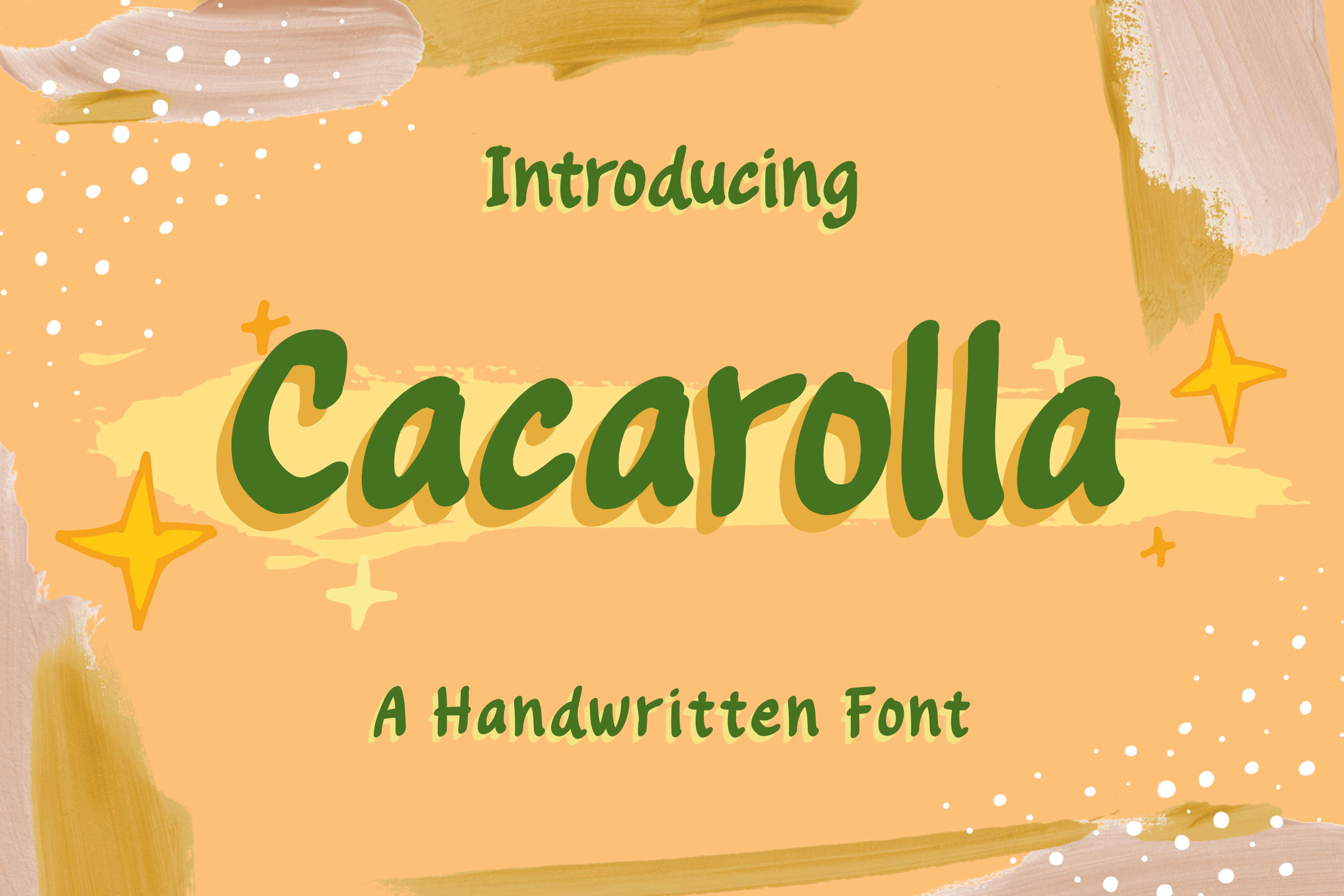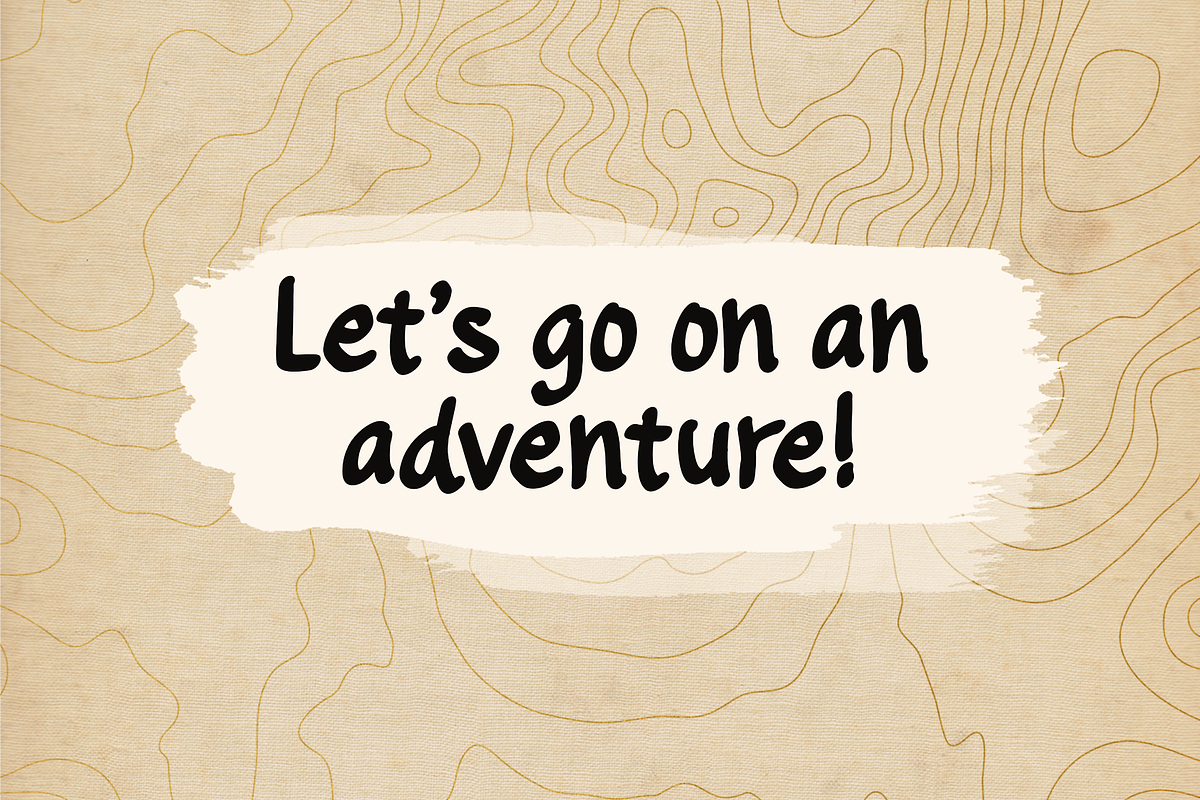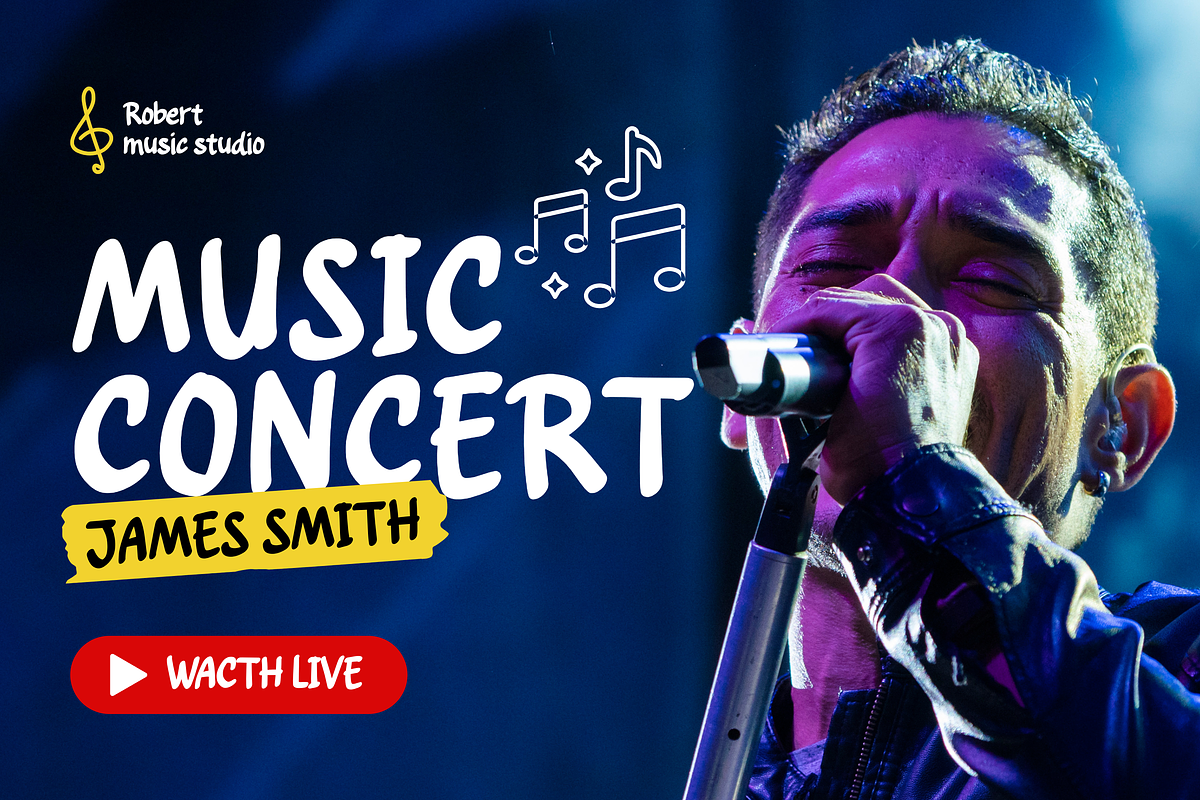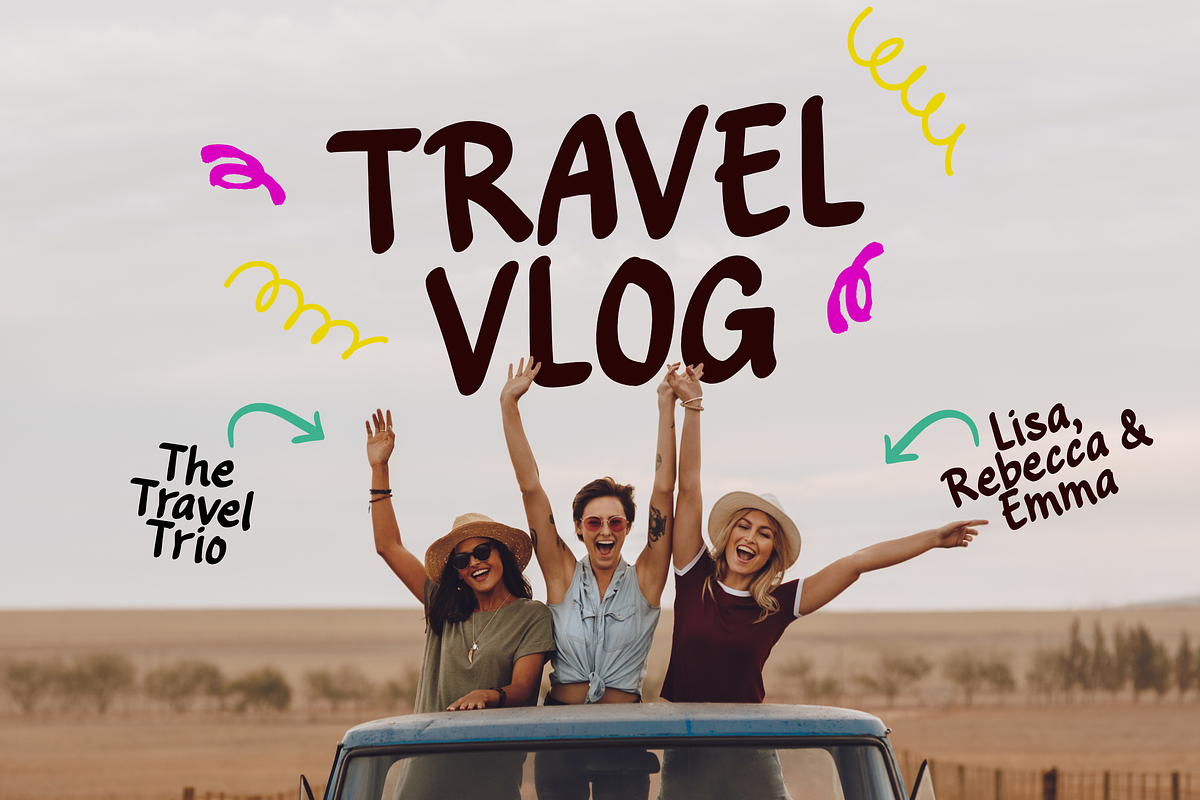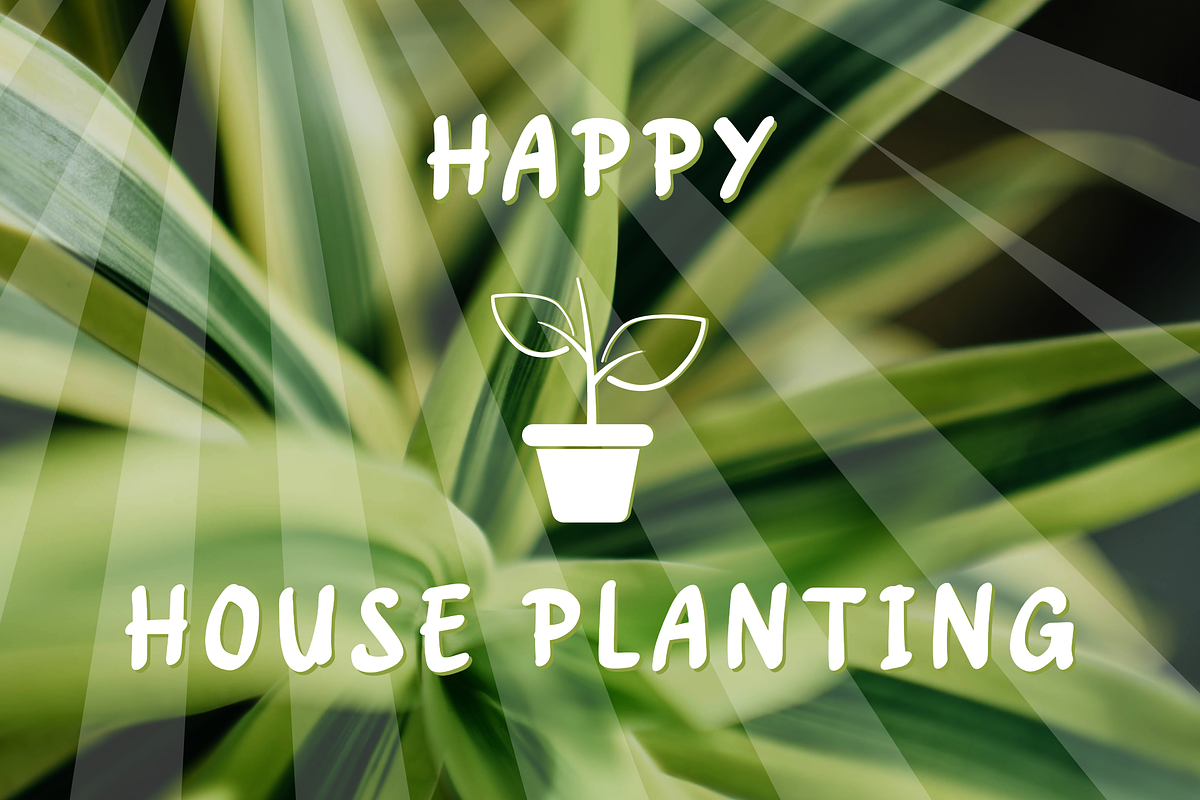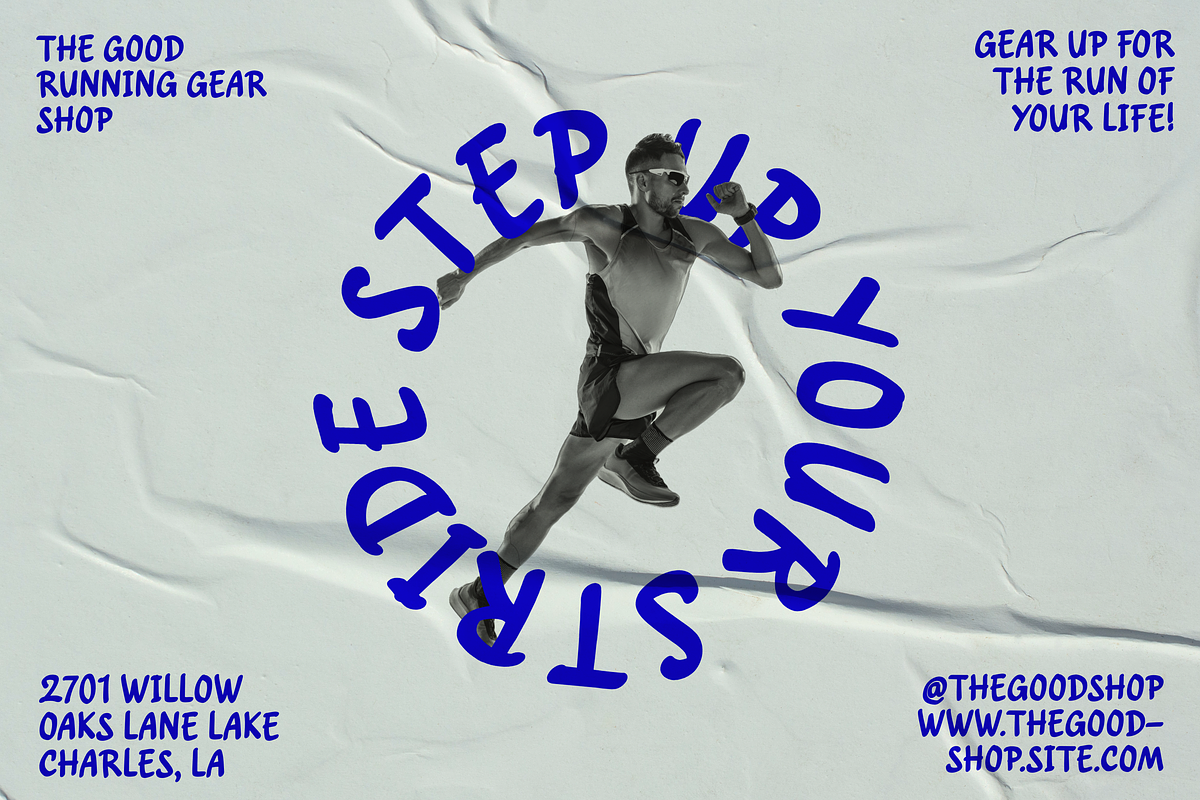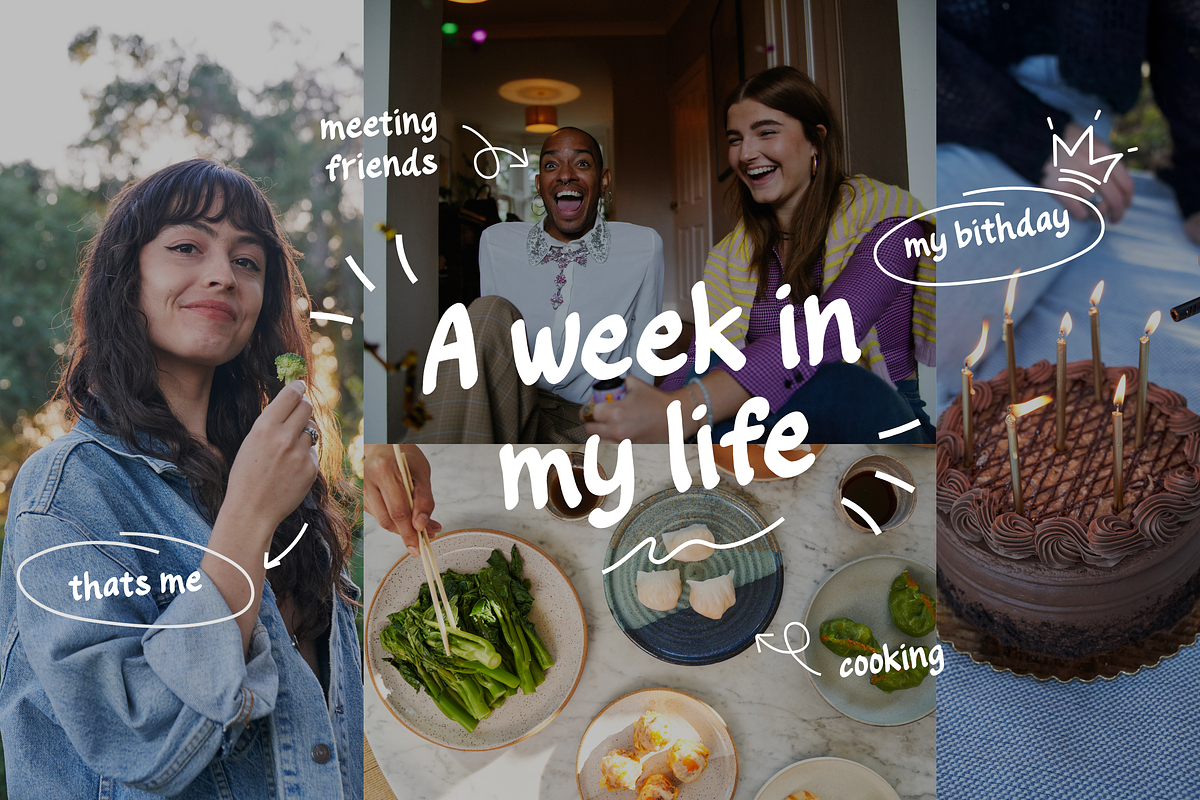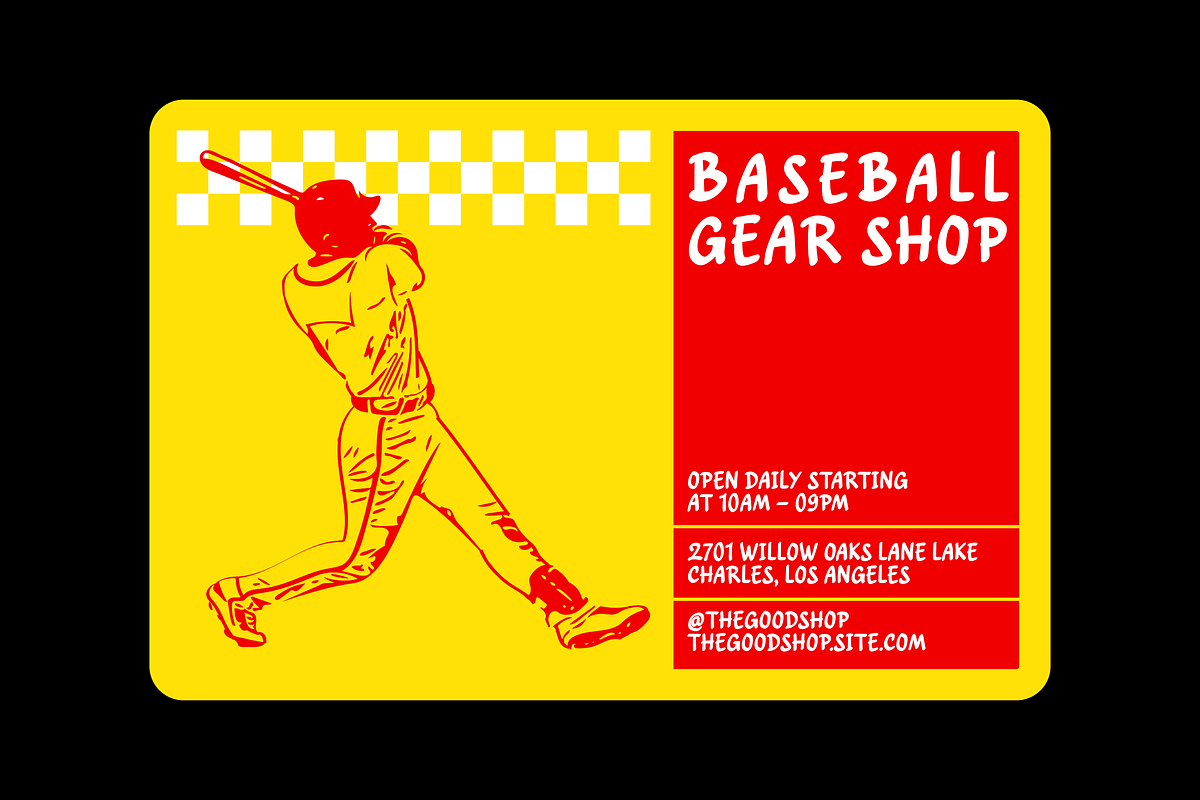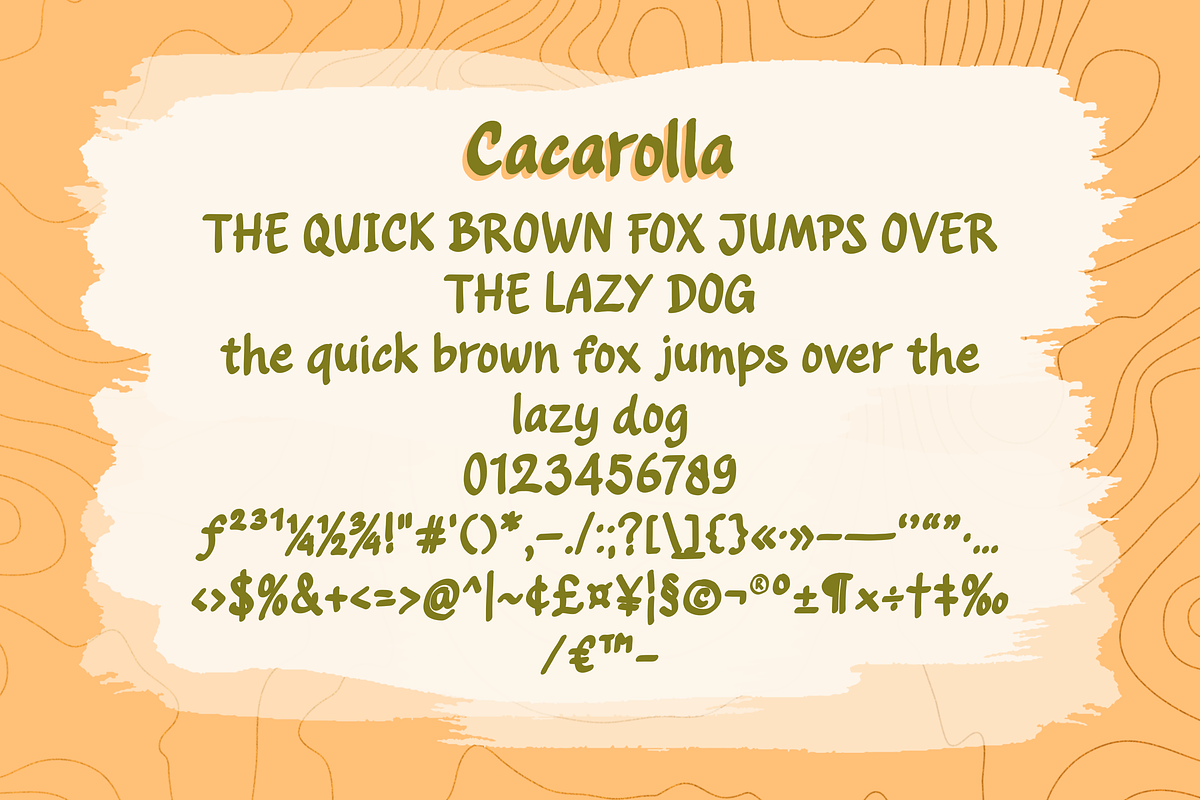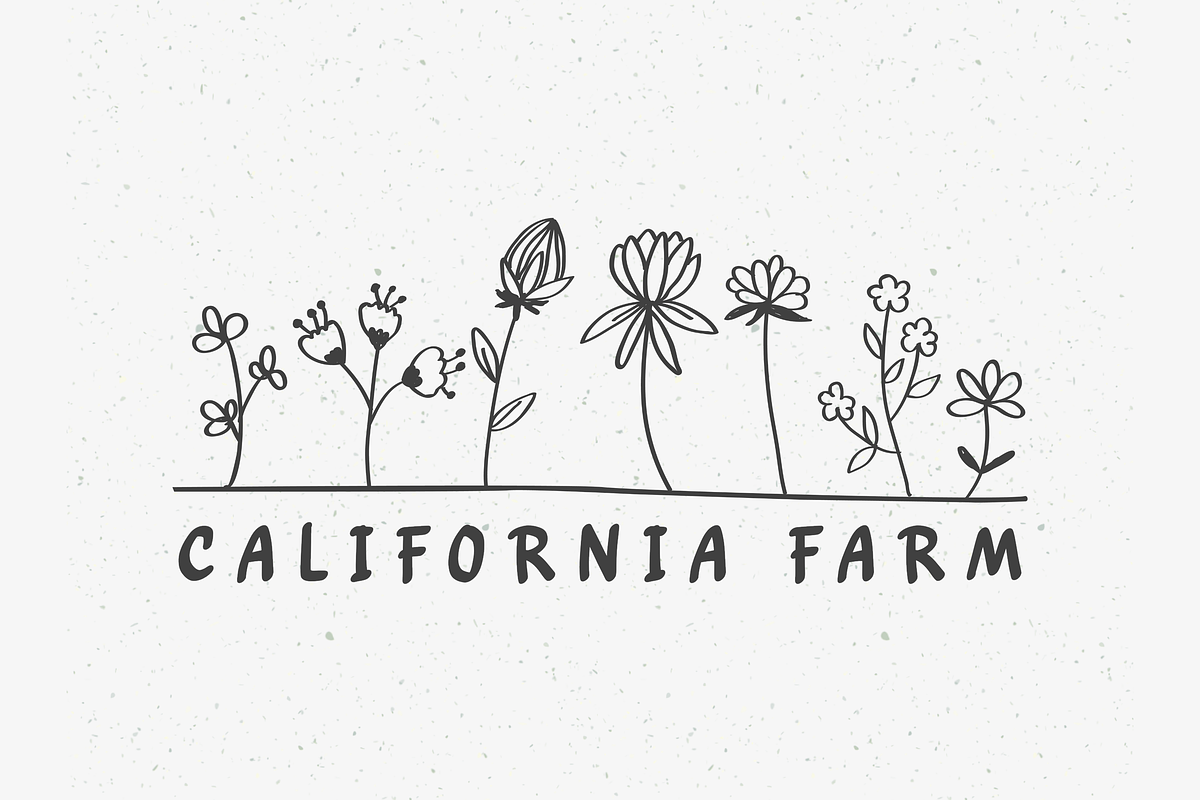
Cacarolla - Handwritten Script Font
Cacarolla is a bold, bouncy handwritten font that brings warmth and personality to any design. Crafted with confident brush-like strokes and a playful character, it perfectly delivers a friendly, organic, and authentic handmade feel.
Its casual yet distinct rhythm makes Cacarolla incredibly versatile. It is an excellent choice for eye-catching product packaging, playful branding identities, heartwarming social media graphics, greeting cards, crafts, and any creative project that needs a welcoming and cheerful touch.
Character Set (Uppercase & Lowercase)
Numbers, Punctuation & Symbols
Product Packaging & Label Design
Brand Identity & Logo Crafting
Social Media Quotes & Instagram Posts
Greeting Cards, Invitations & Merchandise
Children’s Book Titles & School Projects
Bakery, Cafe, or Creative Studio Branding